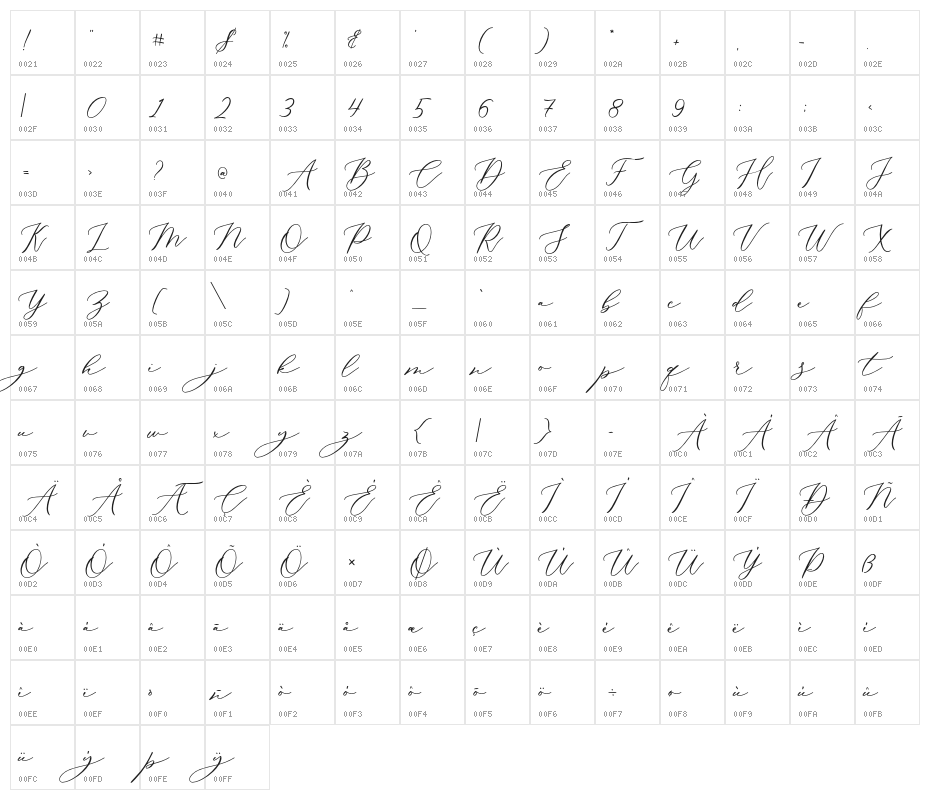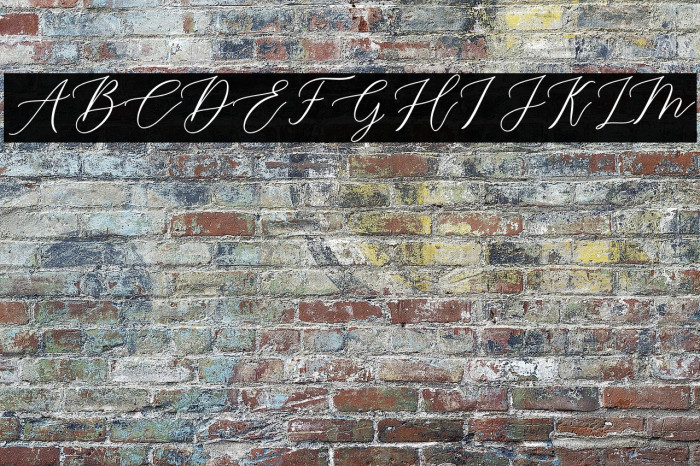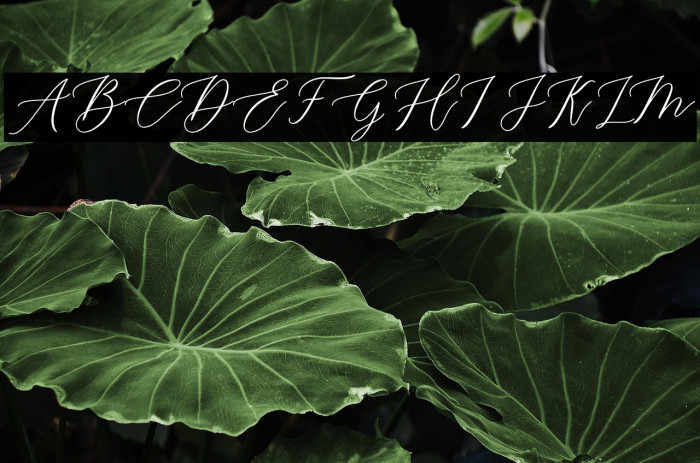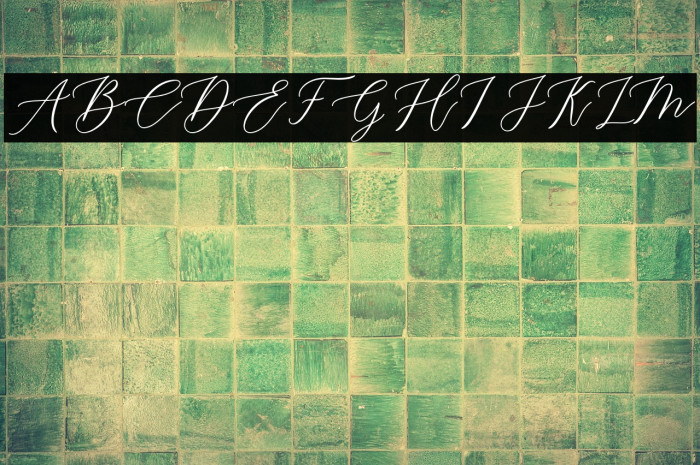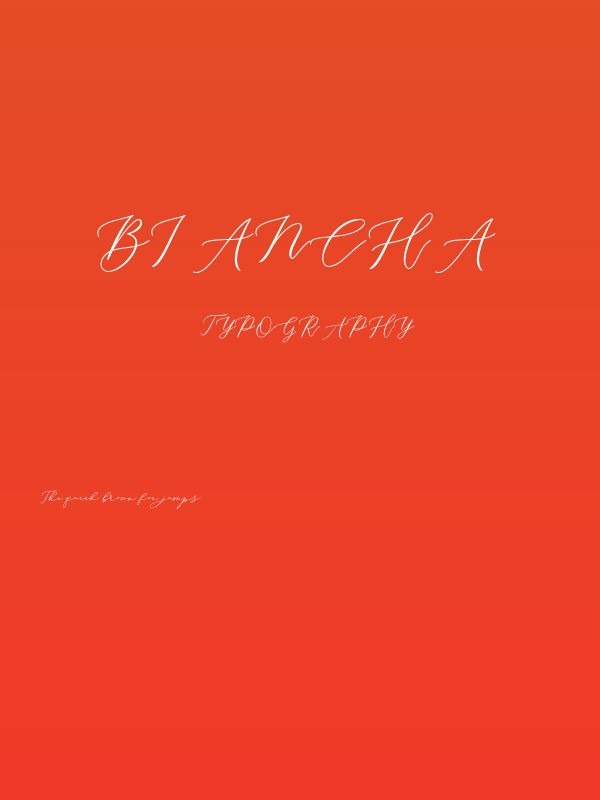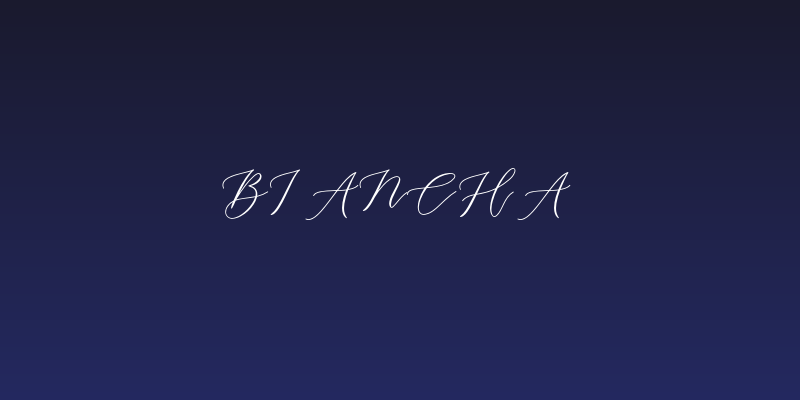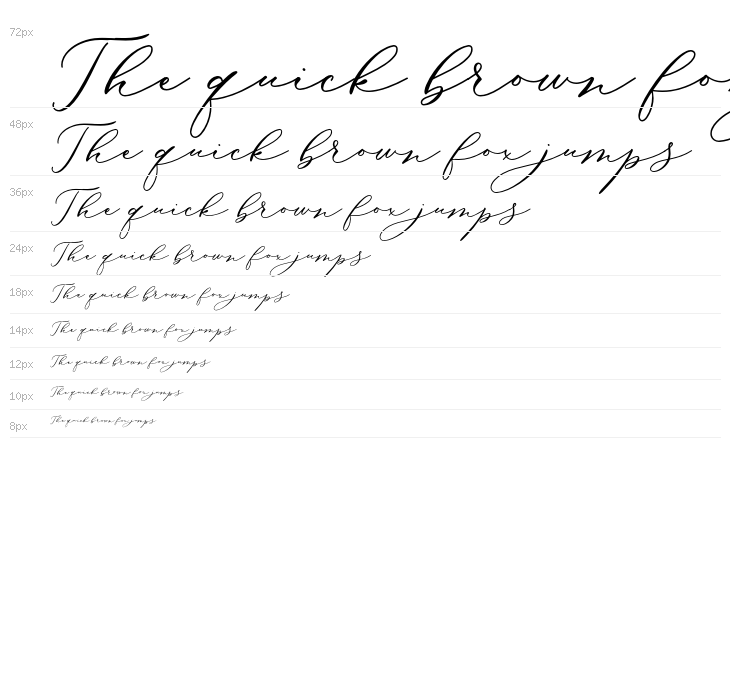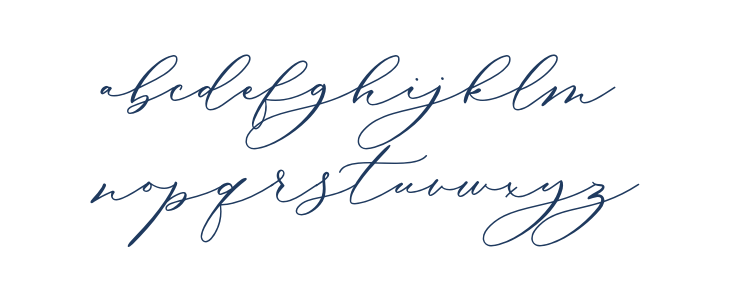
Biancha Font
Biancha Description
This elegant script font features a flowing, cursive style that exudes sophistication and grace. The letters are interconnected with smooth, sweeping lines, creating a sense of fluidity and movement. The uppercase characters are slightly more ornate, with flourishes that add a touch of drama, while the lowercase letters maintain a consistent rhythm. The numerals are designed to complement the overall style, with a slight slant and delicate curves. Special characters are seamlessly integrated, maintaining the font's cohesive aesthetic. This font is perfect for projects that require a touch of elegance and refinement.
| Proposed Projects | Ideal for wedding invitations, elegant branding, personal stationery, and high-end product packaging. |